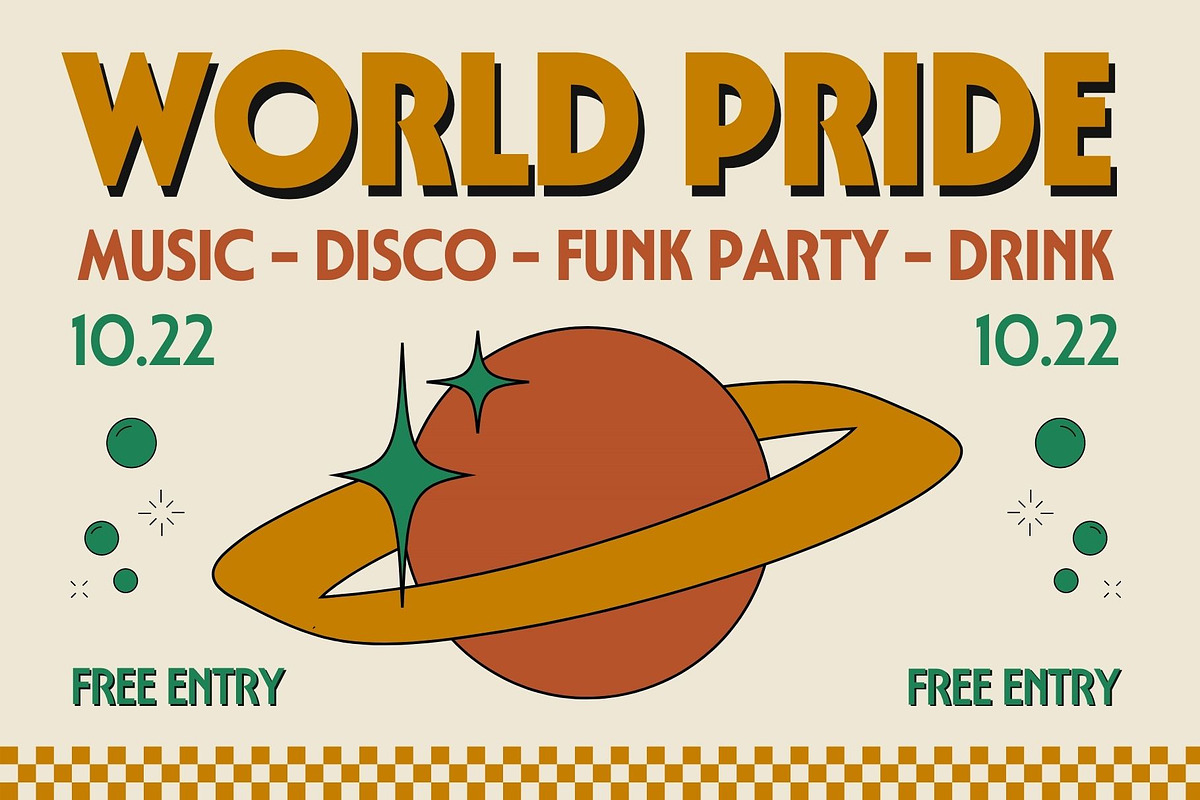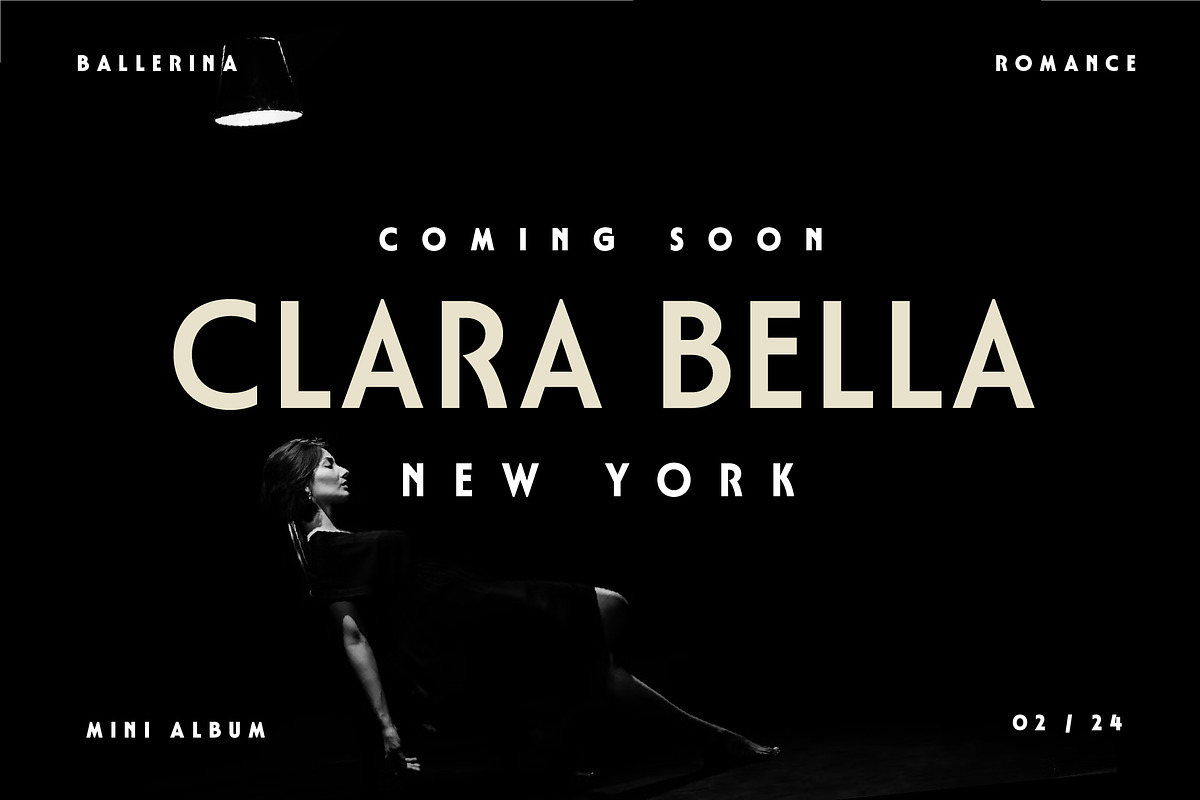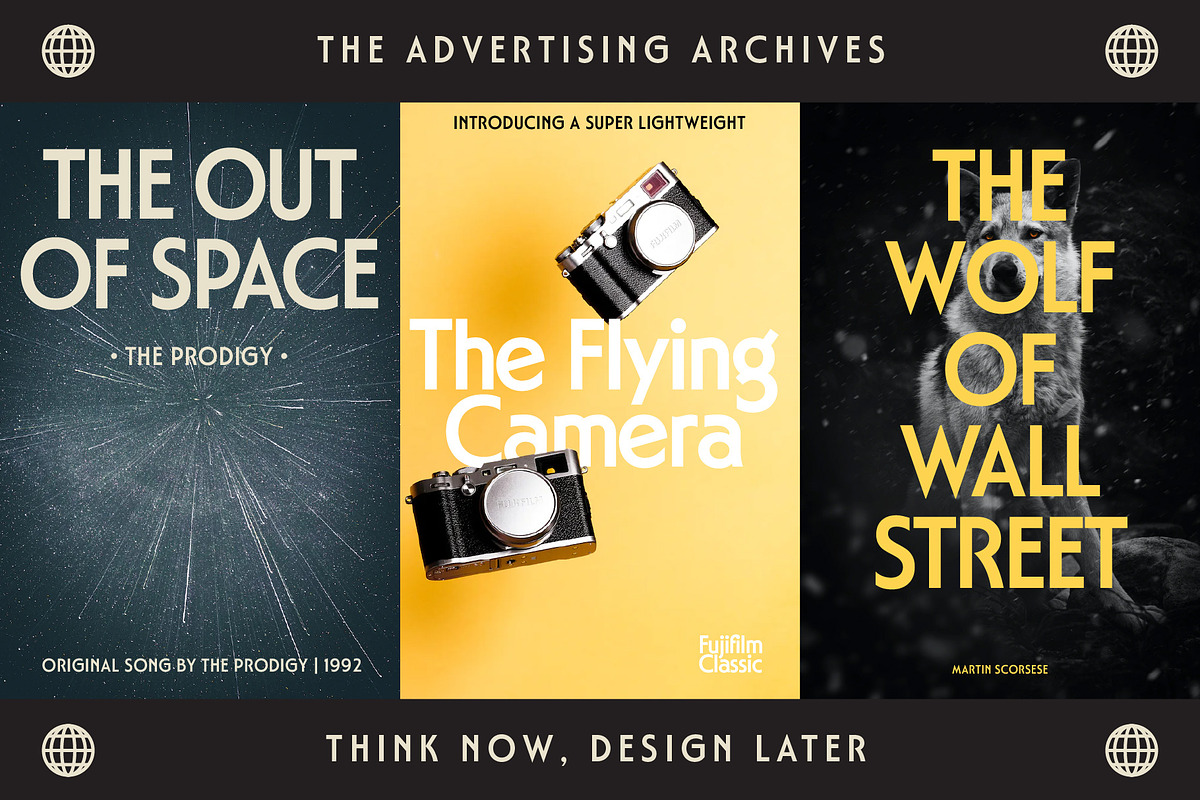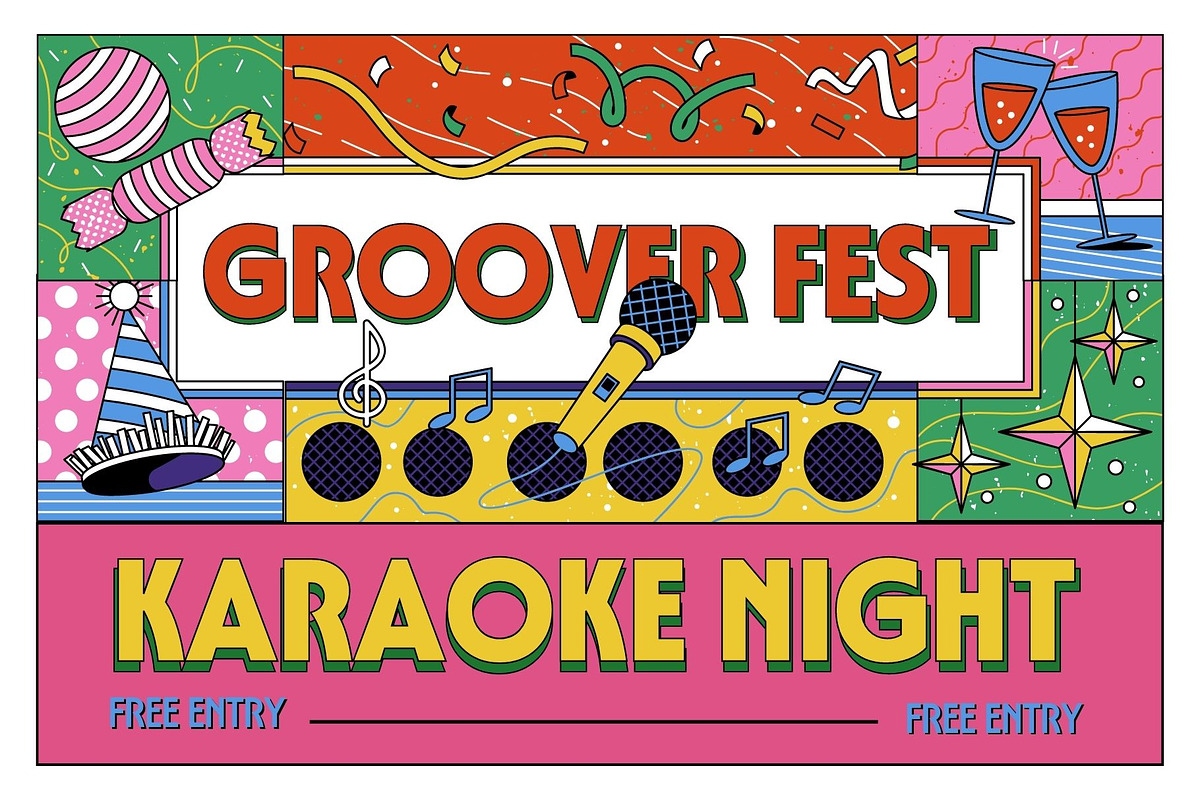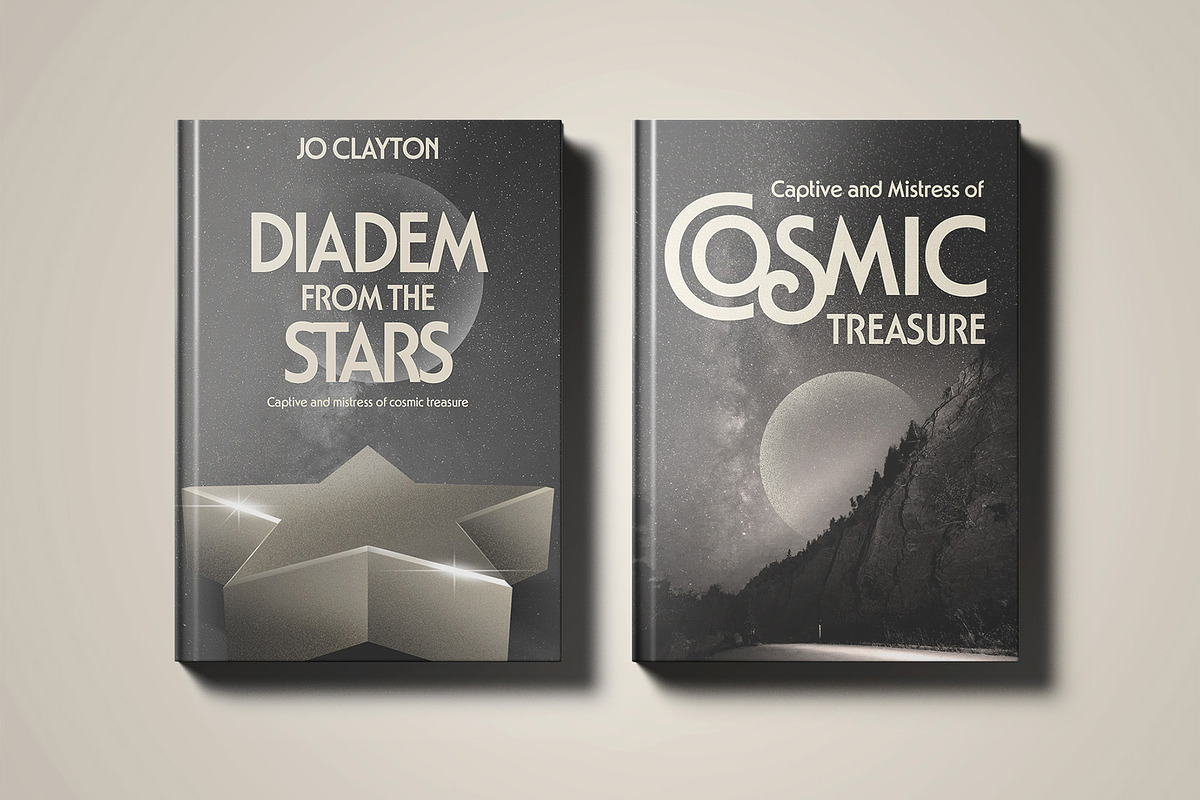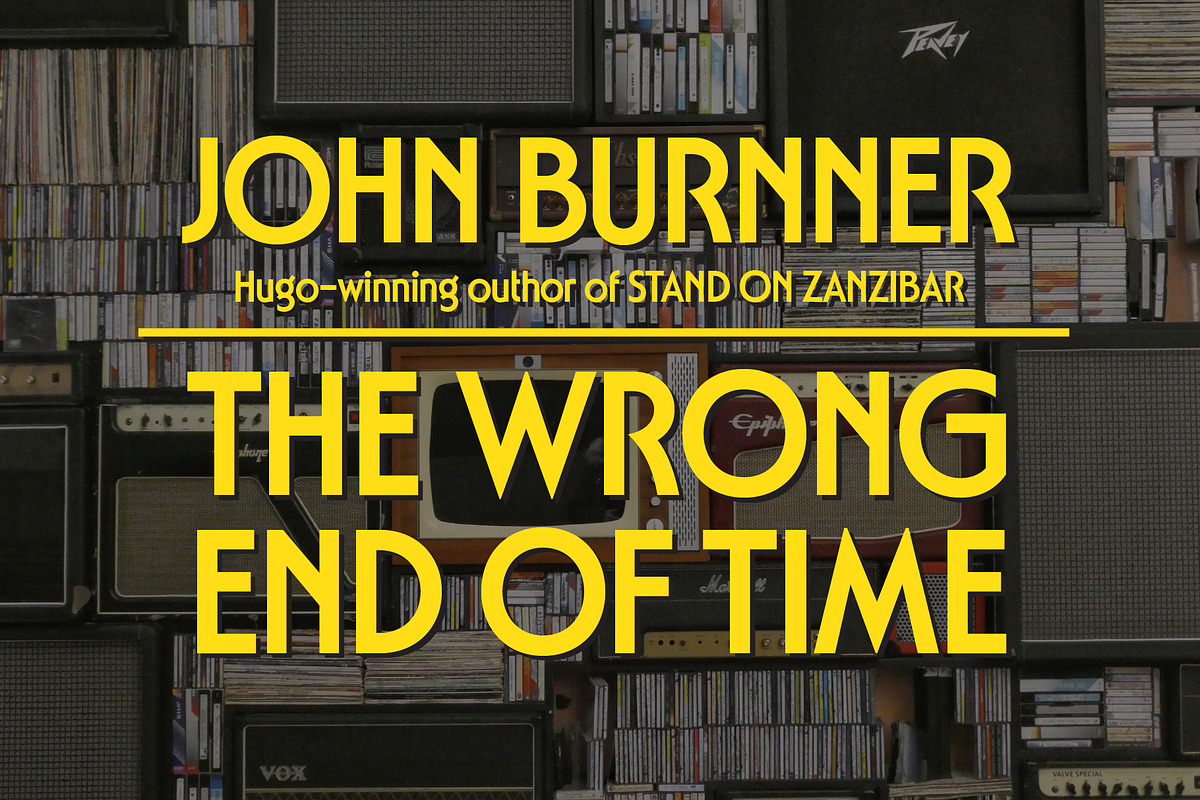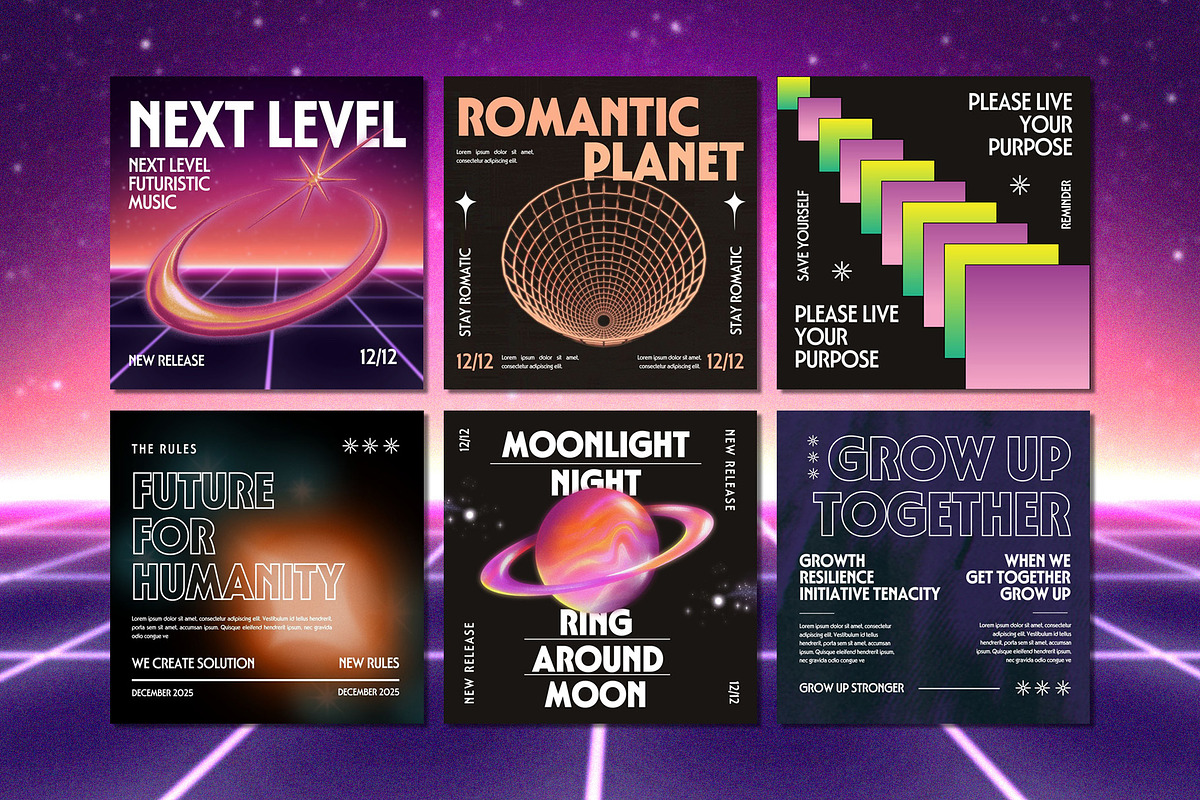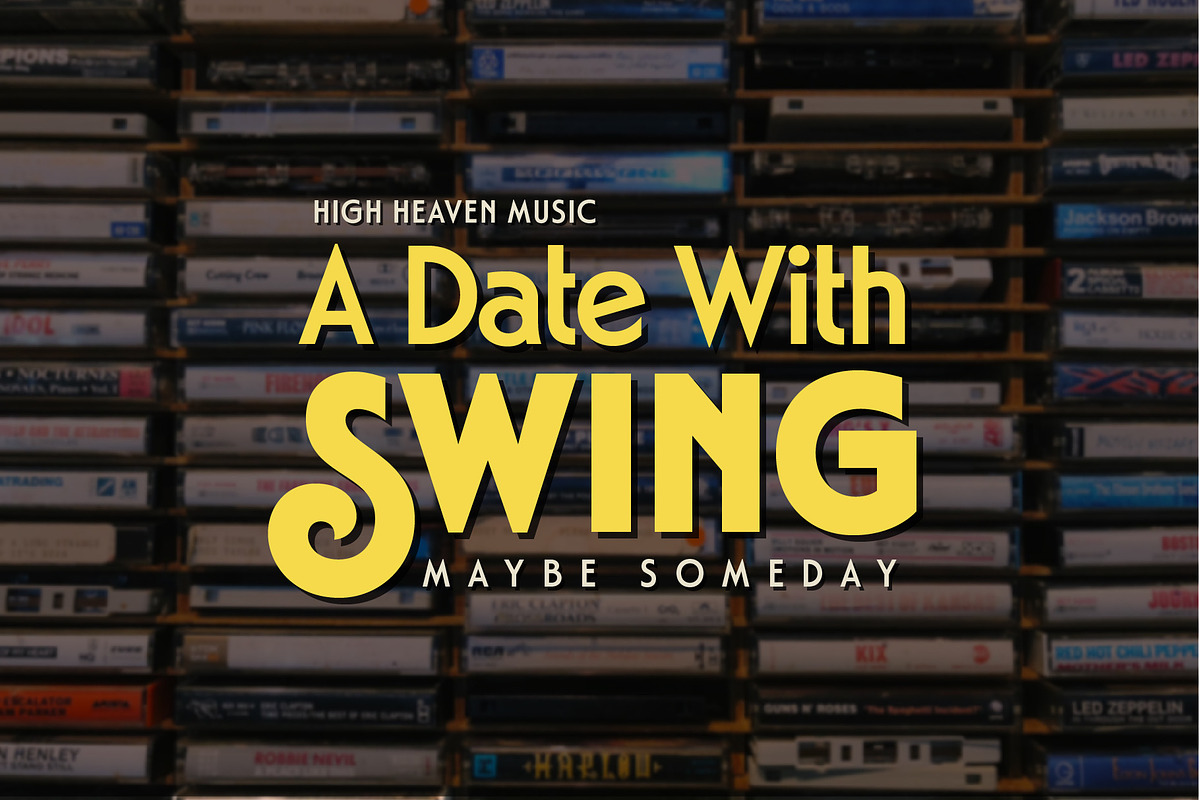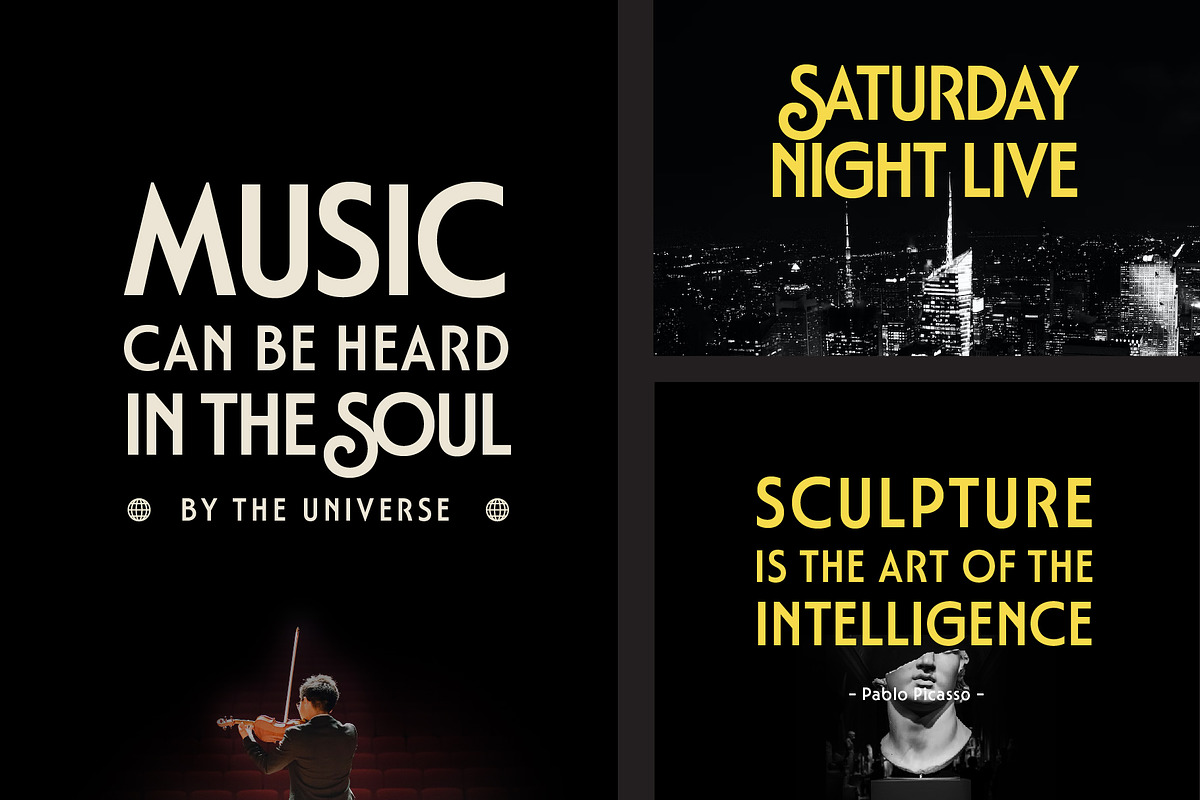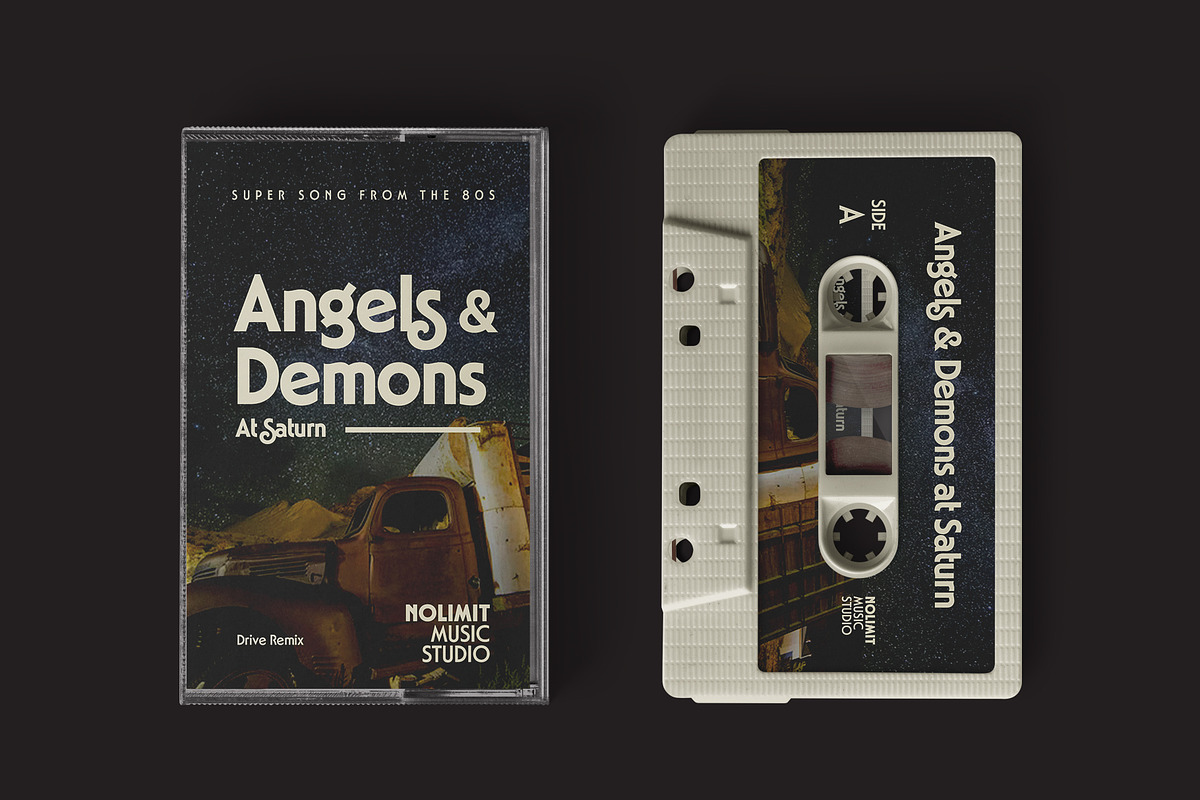
Noland
Noland, A new carefully crafted Variable Geometric Typeface. The Ideas of this fonts are from retro poster, music, movie poster, theater, science fiction from the 70s and early 80s. Adding the elements from the reference above to be represented as Noland. It’s Versatile, Fun, Sharp and Retro-ish feel that you get in Noland Typefaces.
Noland Available with 3 Weights: Regular, Semibold and Bold. Also Available in Variable, so the weights are more flexible between Regular and Bold. Just Play with slider weight. Our creation on the display to give you a reference what it looks like on your project. such as Branding, Header, Logotype, Poster, Magazine, Packaging, and etc. It shows that Noland clearly can accommodate Retro Vintage style.